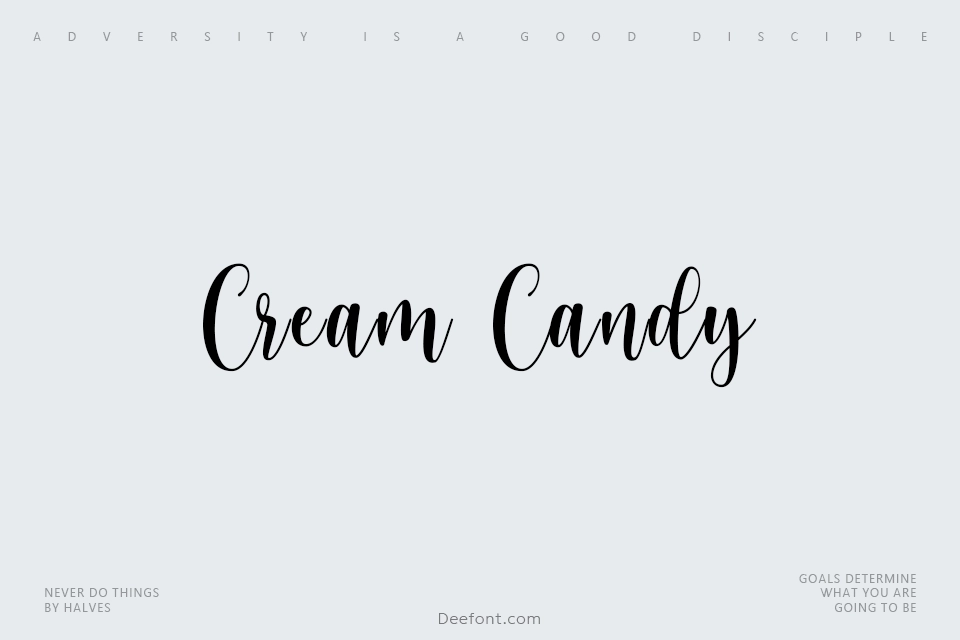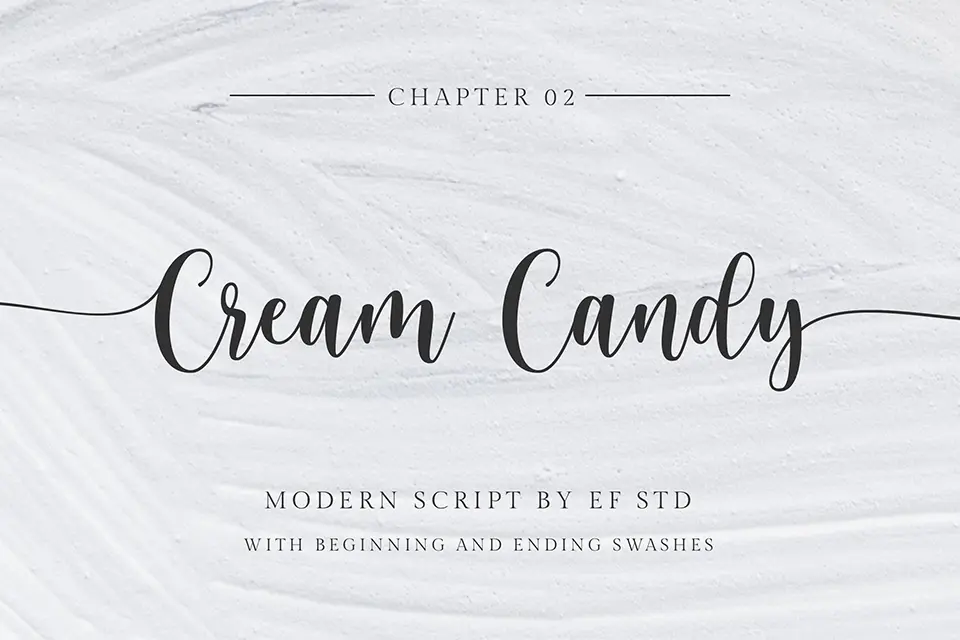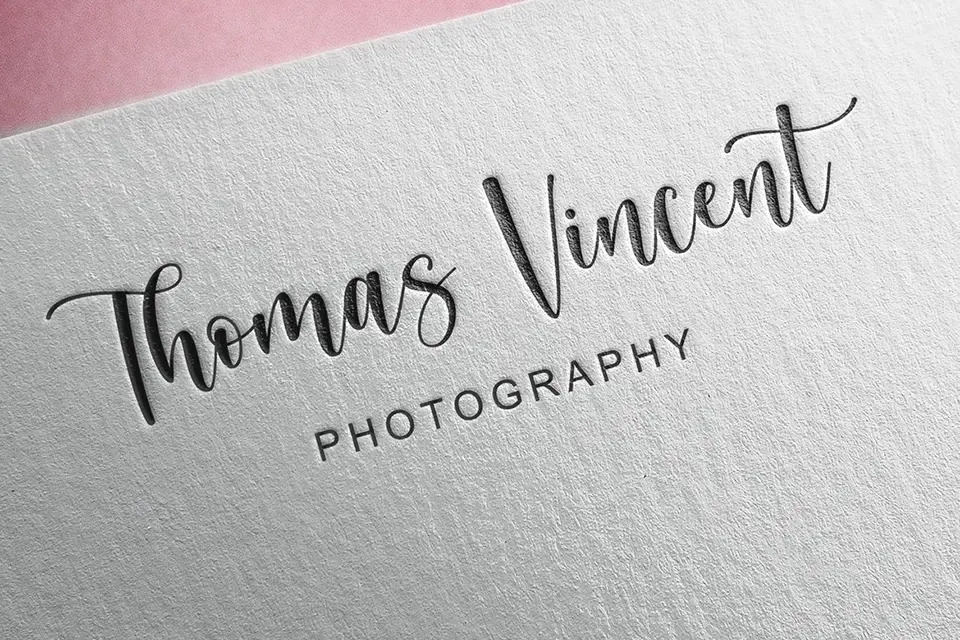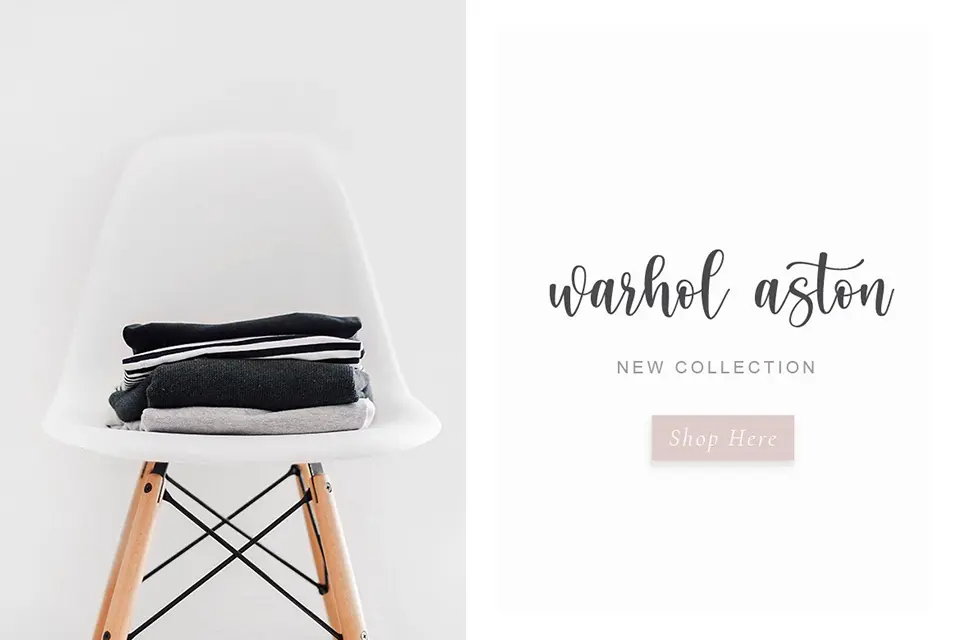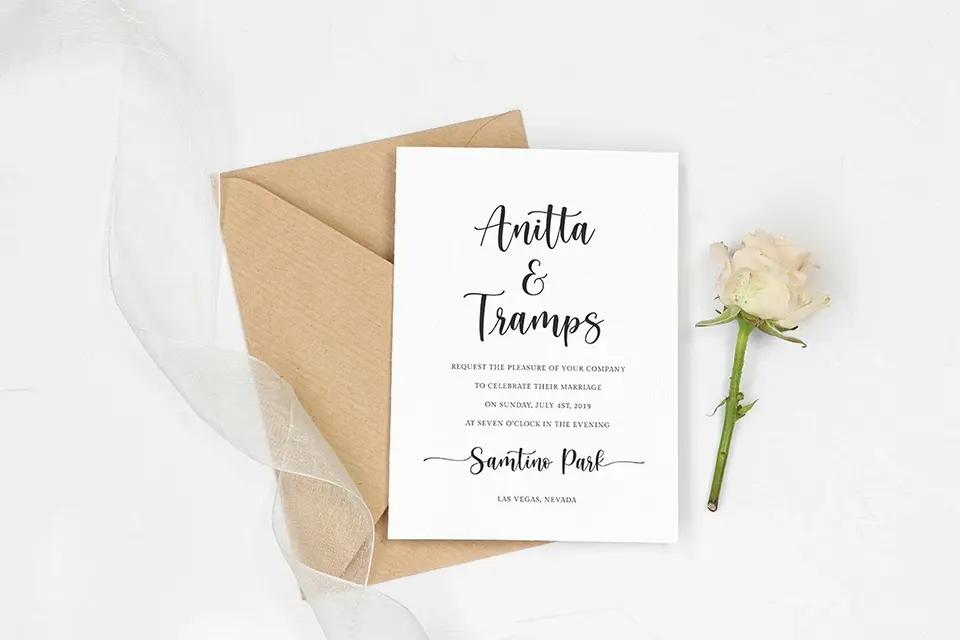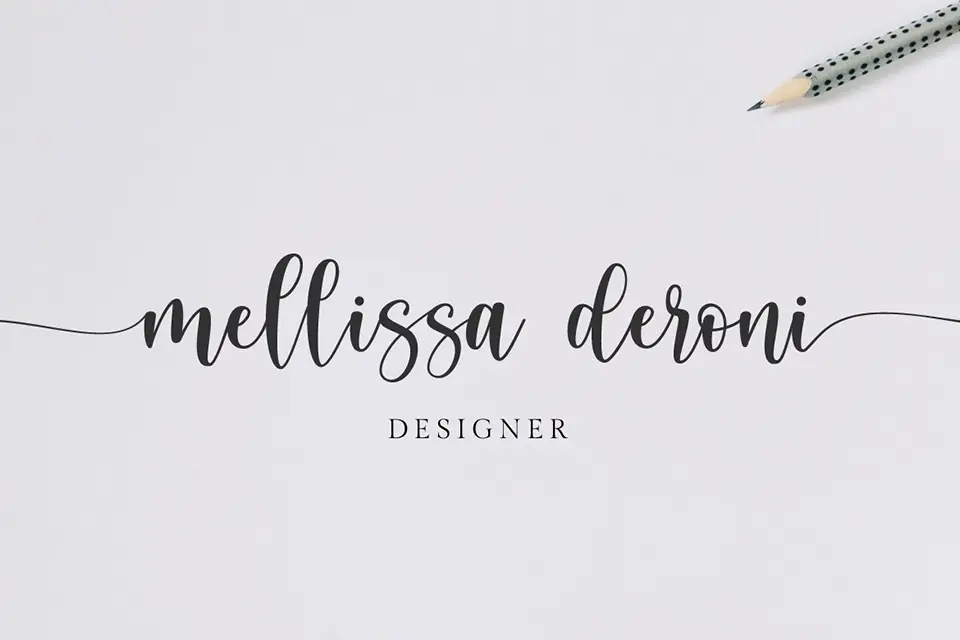
Cream Candy Font
Cream Candy is a modern script font that blends elegance with playful flair, making it ideal for invitations, branding, and creative projects. Featuring 22 ligatures and stylish swashes at the beginning and end of characters, this typeface brings a handcrafted, calligraphic touch to your designs. Use Cream Candy to add warmth and sophistication to logos, greeting cards, wedding materials, or marketing visuals. Suitable for anyone seeking an eye-catching, contemporary script look.